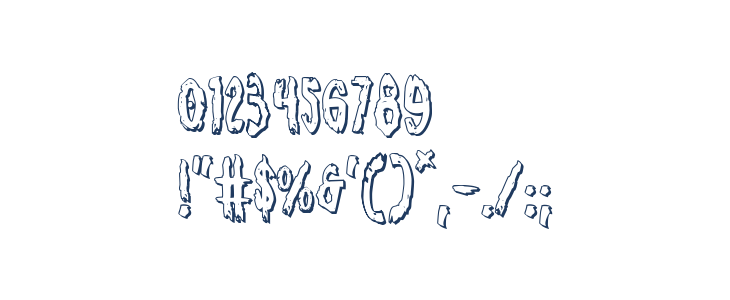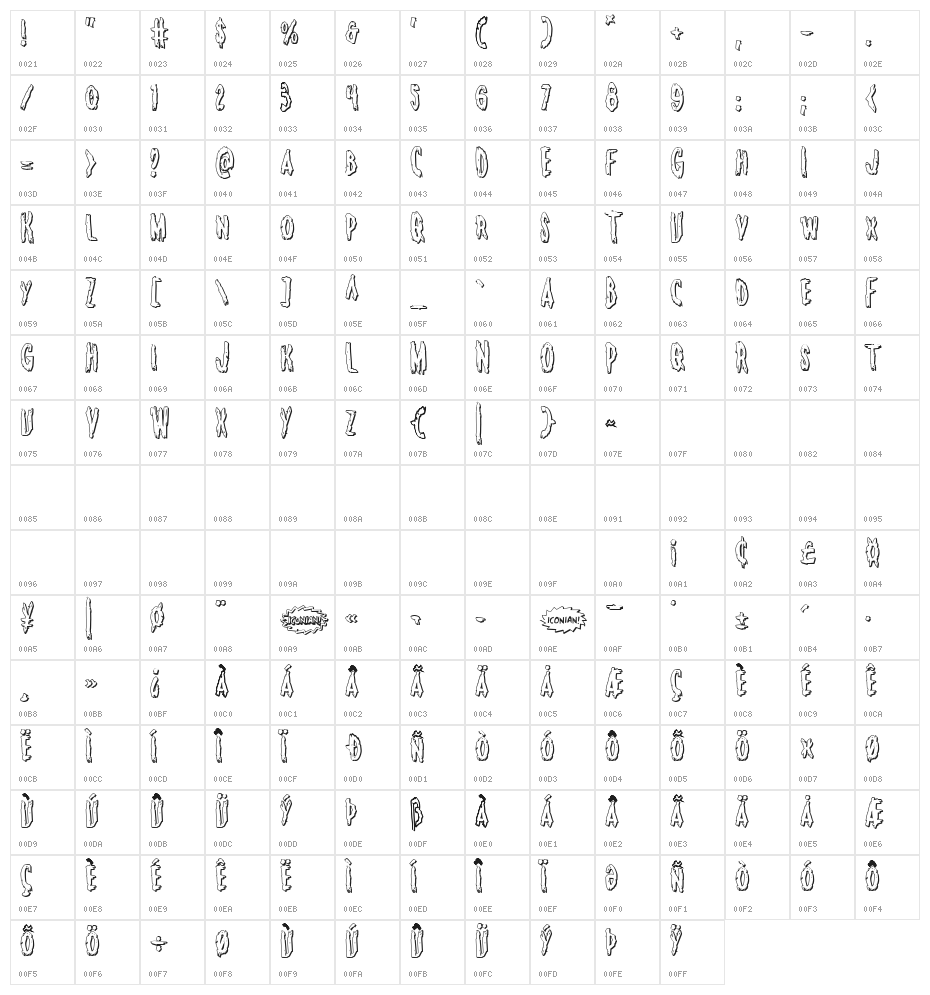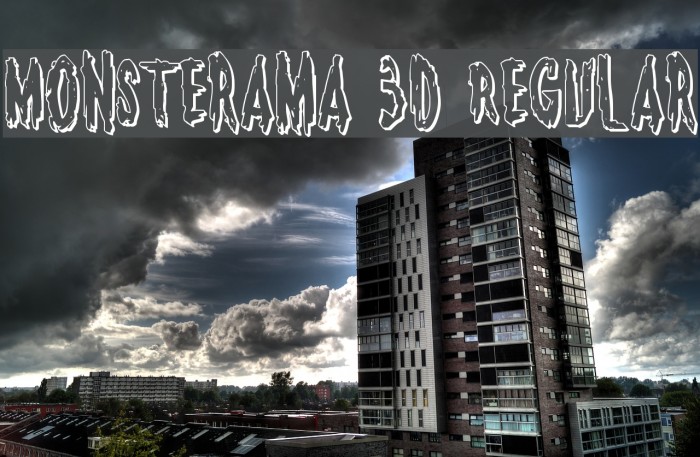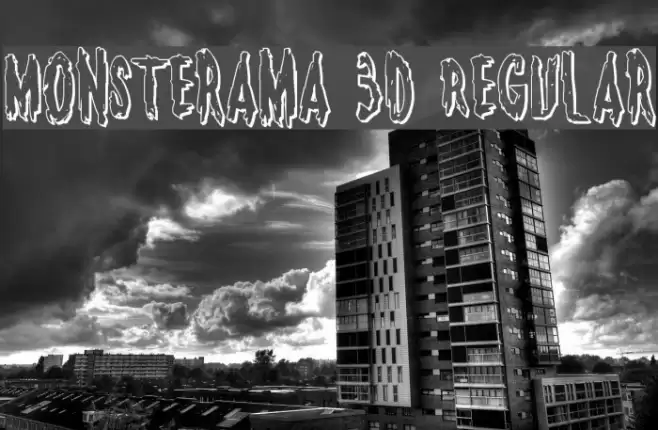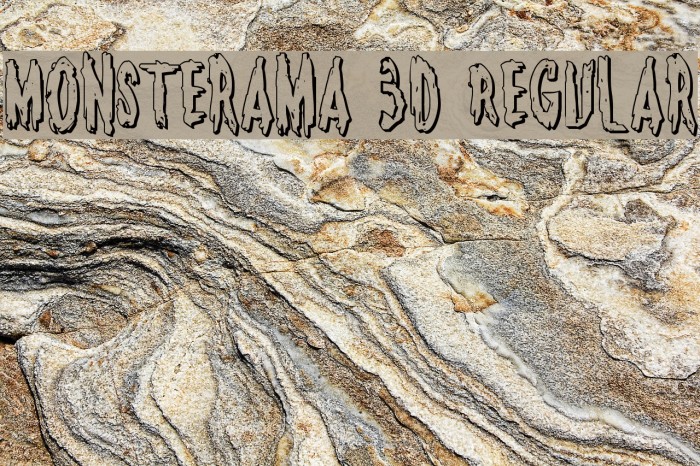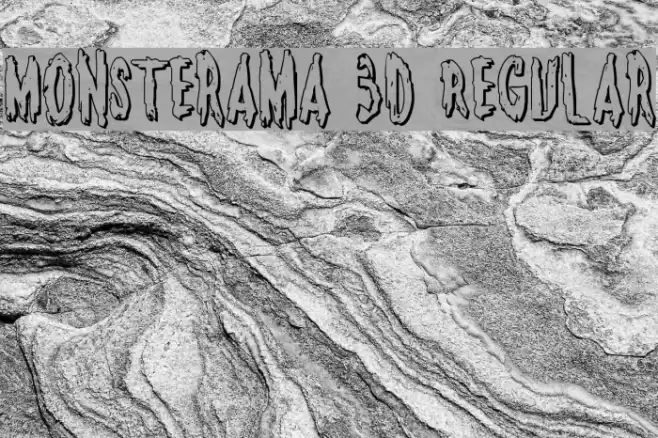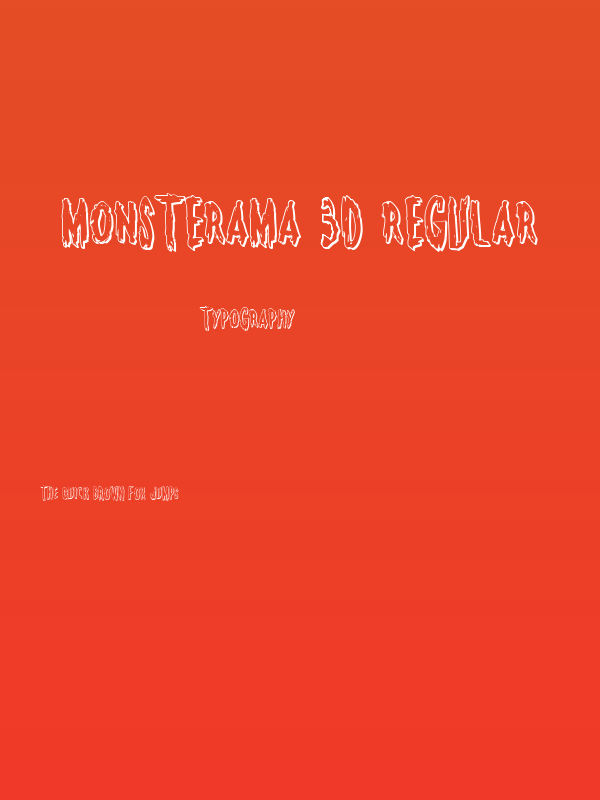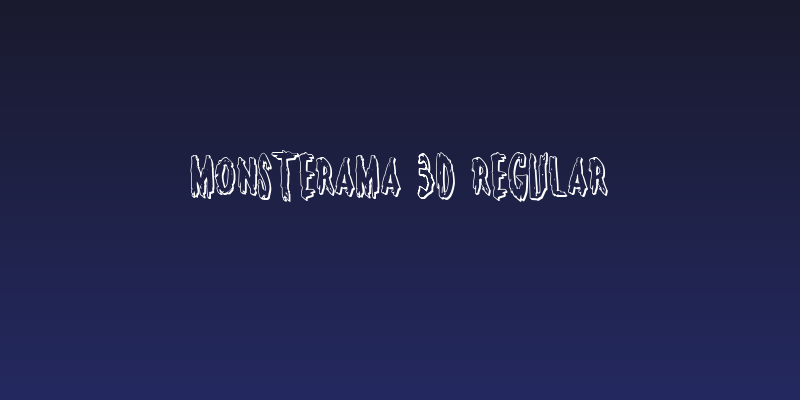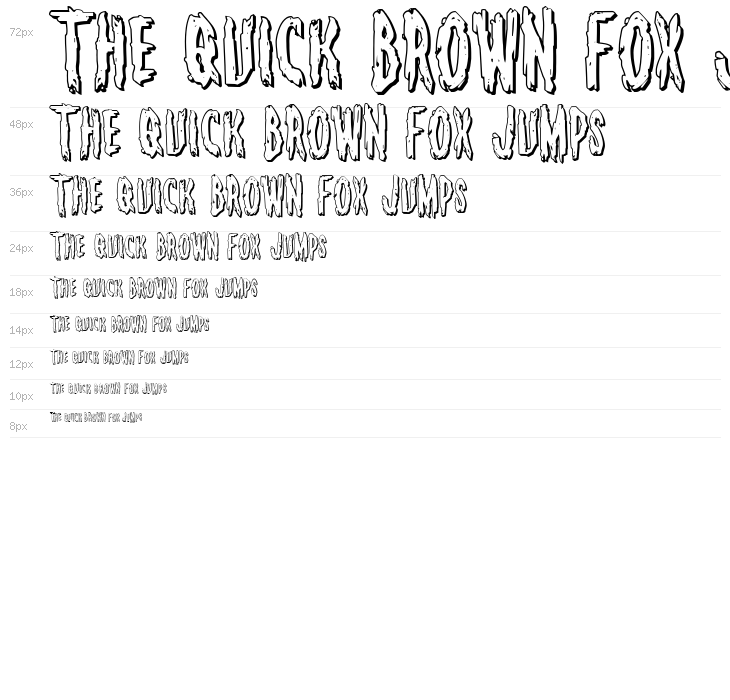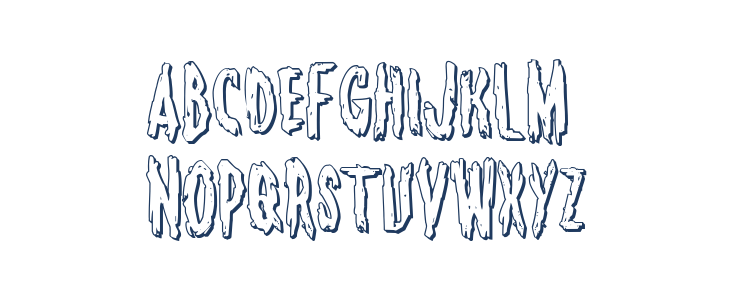
Monsterama 3D Regular Font
Monsterama 3D Regular Description
This font features a bold, three-dimensional appearance with a playful and slightly eerie vibe. The letters are designed to look like they are dripping or melting, giving them a dynamic and eye-catching quality. The uppercase and lowercase letters maintain a consistent style, with jagged edges and irregular shapes that add to the font's unique character. Numbers and special characters follow the same design principles, ensuring a cohesive look across all glyphs. This font is perfect for projects that require a fun, spooky, or adventurous theme.
| Use Case | Headlines, Posters, Logos |
| Proposed Projects | Ideal for Halloween-themed designs, horror movie posters, children's adventure books, or any project needing a spooky and fun aesthetic. |